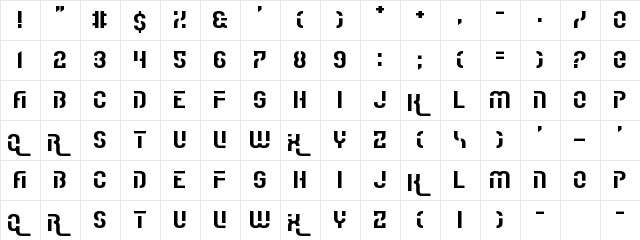
I Really Really Like Fonts Regular
Design Context for I Really Really Like Fonts Typeface
I Really Really Like Fonts is a composed and adaptable typeface that performs quietly and consistently across a wide range of design contexts.